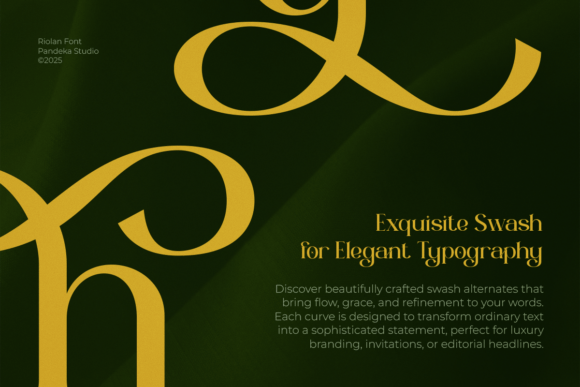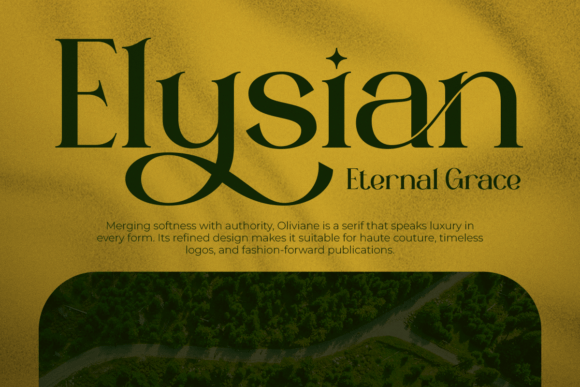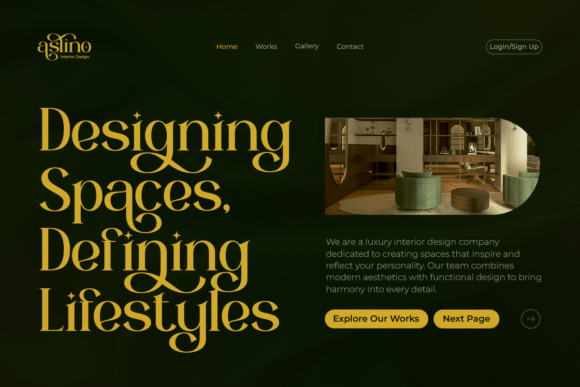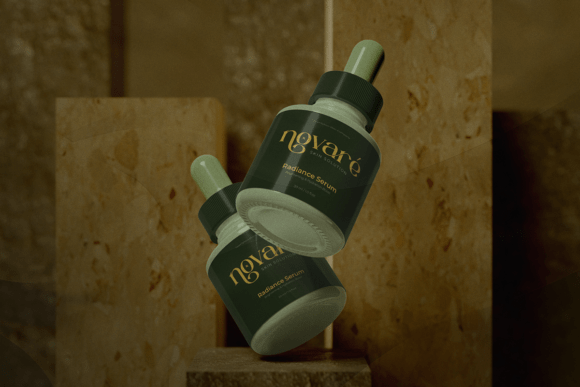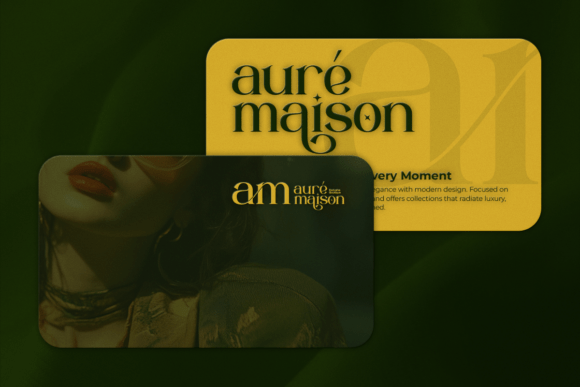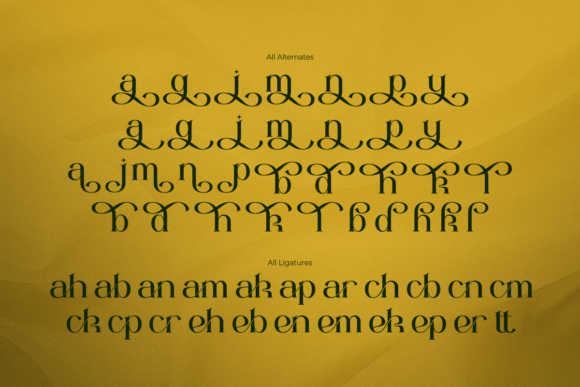
Introduction to Riolan Font Font
Fonts play a crucial role in design, and the Riolan Font font is a typeface that brings both character and versatility to any project. Whether you’re working on a branding project, a website, or a print design, the Riolan Font font offers a unique style that can elevate your work.
Riolan is a refined serif typeface that radiates sophistication and timeless beauty.
Designed with graceful curves, high contrast, and elegant proportions, this font brings a sense of exclusivity to any visual identity Perfect for luxury logos, fashion brands, editorials, packaging, and modern lifestyle projects, Riolan embodies the essence of classic elegance with a contemporary flair.
Key Features of Riolan Font Font
Why Choose Riolan Font Font?
The Riolan Font font is more than just a typeface – it’s a design tool that helps you communicate your message with style and clarity. Its unique character set and versatile design make it suitable for a wide range of applications, from elegant invitations to bold headlines.
With its carefully crafted letterforms and balanced proportions, the Riolan Font font ensures readability and visual appeal across all mediums.
What makes Riolan Font font special?
The Riolan Font font stands out with its unique design, exceptional readability, and versatility across various design applications.